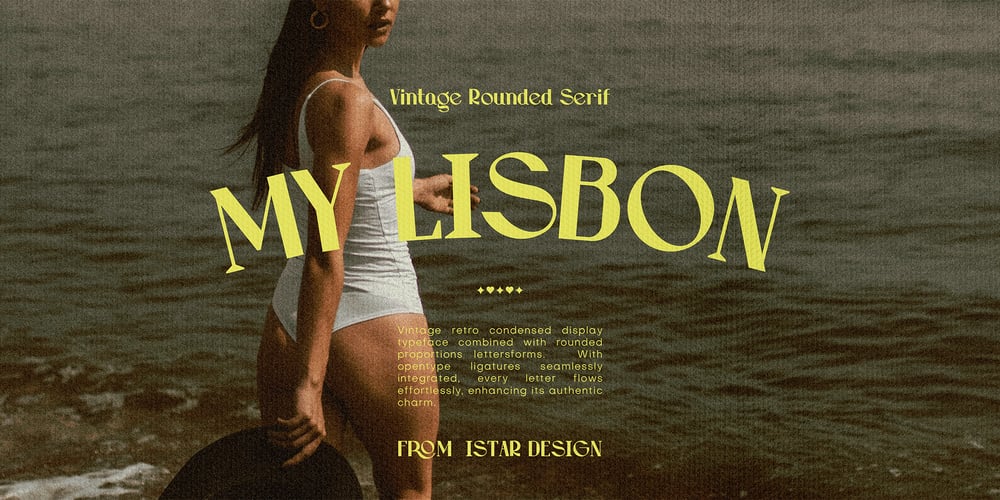
My Lisbon
My Lisbon font
My Lisbon Font Family was designed by Tetiana Bunakova and published by Tetiana Bunakova. My Lisbon contains 1 styles and family package options. My Lisbon script embodies a timeless vintage aesthetic, characterized by its condensed display typeface and elegantly rounded letterforms. Through the seamless integration of opentype ligatures, every letter transitions smoothly, amplifying its inherent allure. Perfect for adding a touch of authenticity to your personal journals, professional presentations, or creative projects.